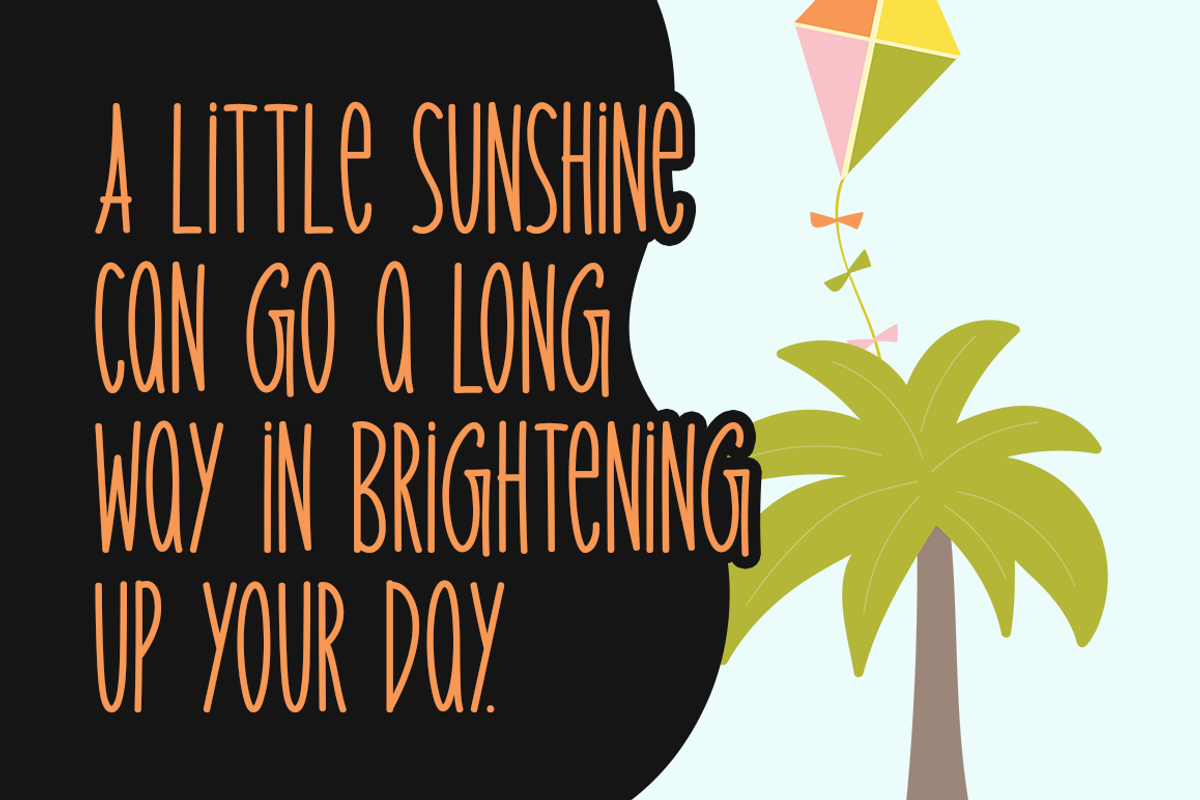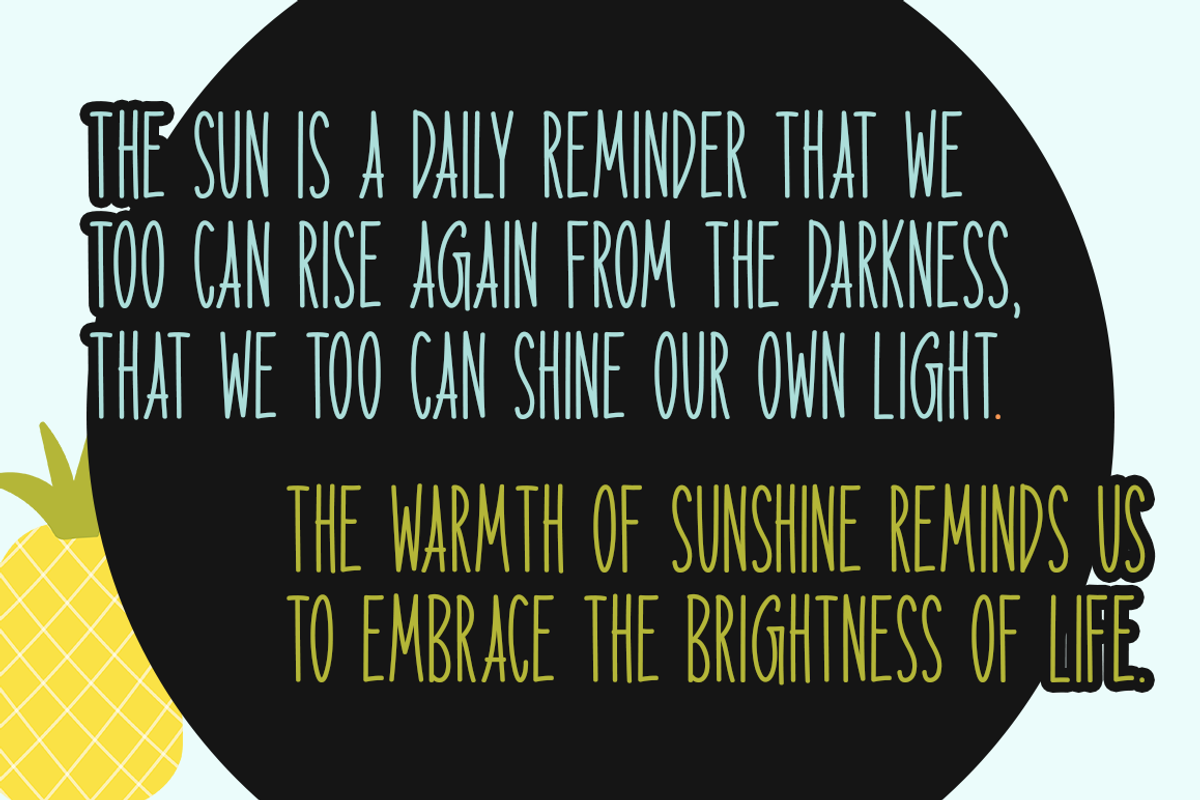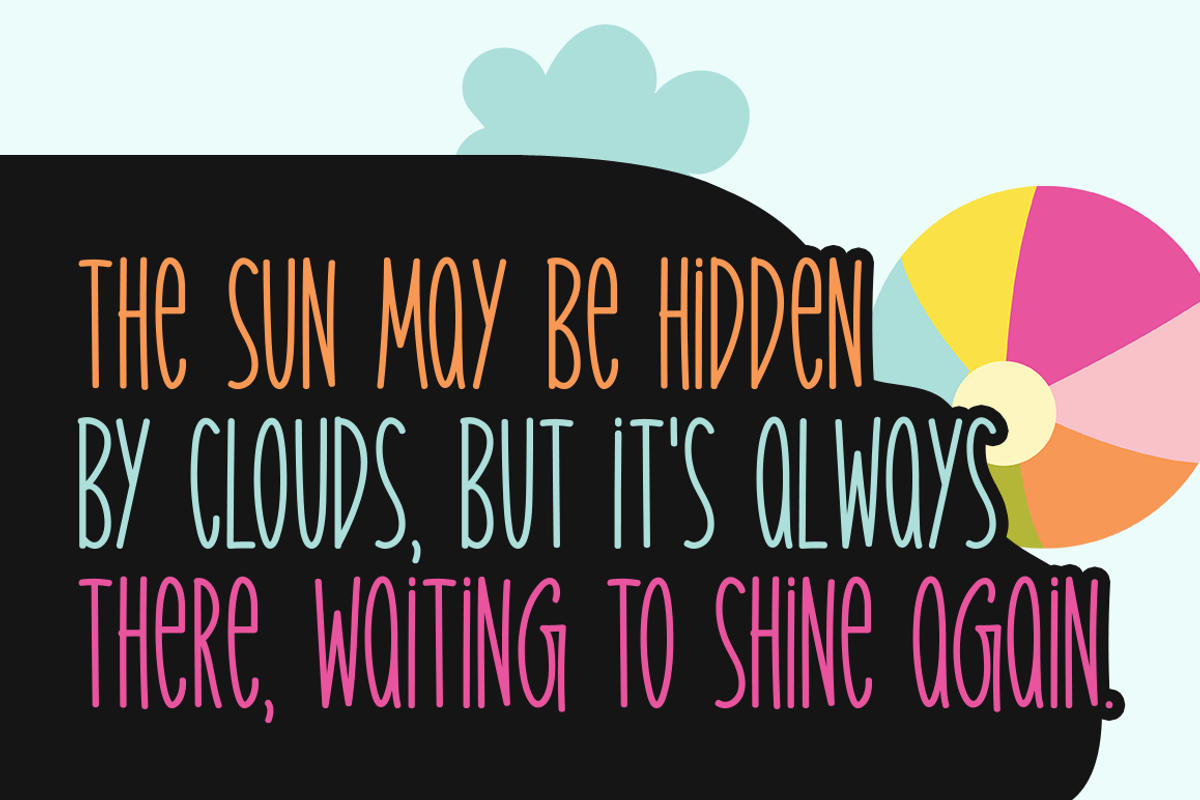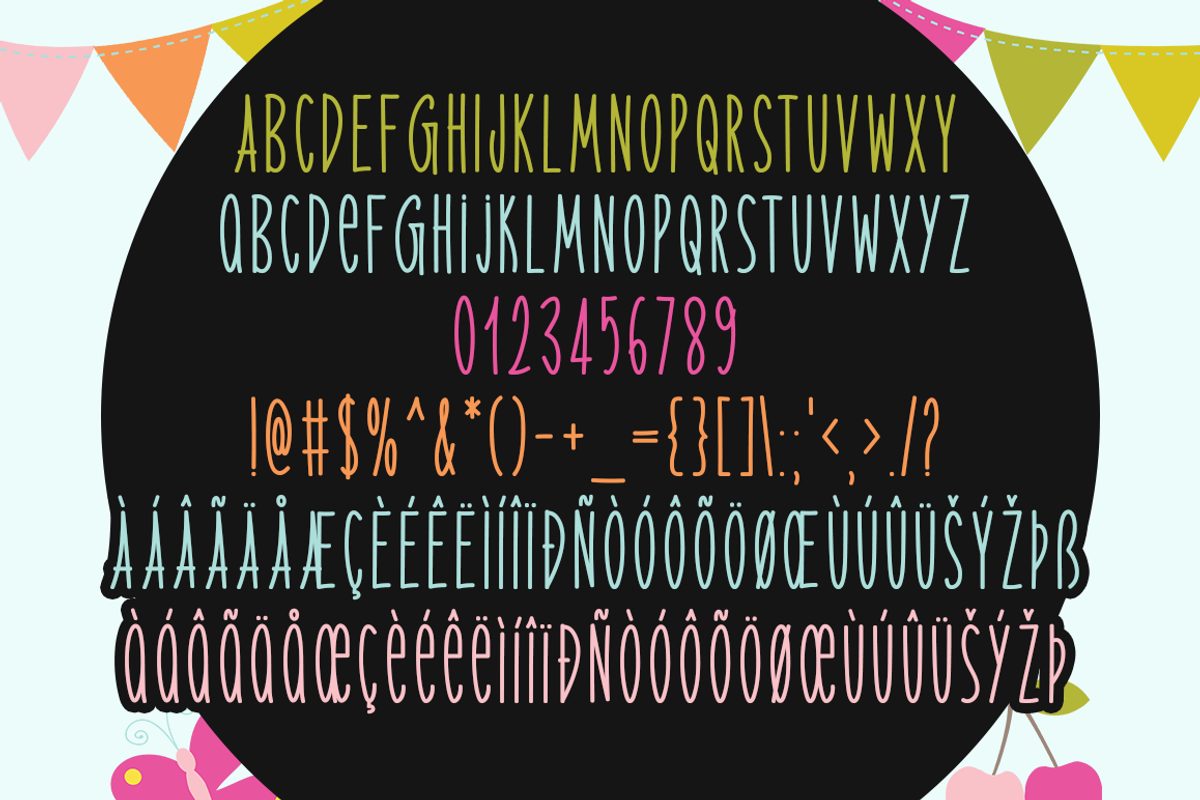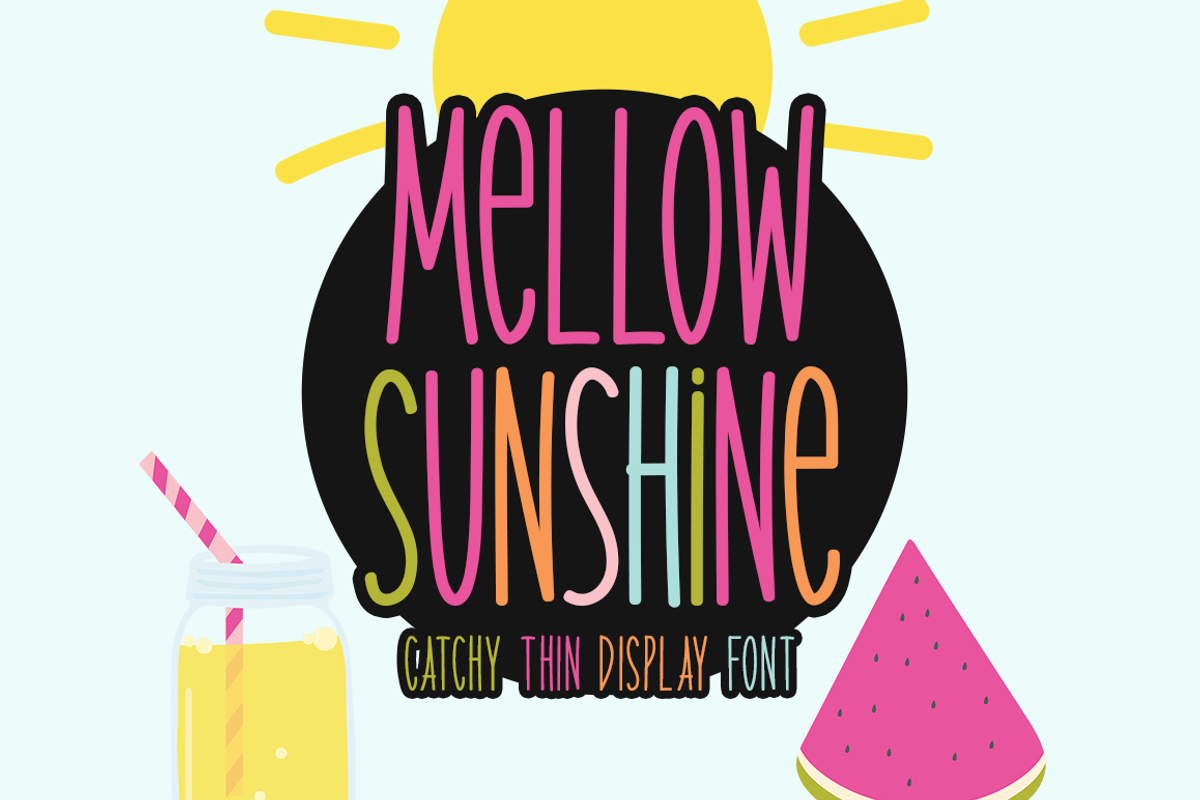
Mellow Sunshine Typeface
Introducing Mellow Sunshine
Mellow Sunshine is an incomparable display font. It can easily be matched to an incredibly large set of projects, so add it to your creative ideas and notice how it makes them stand out!
Includes a range of multilingual support